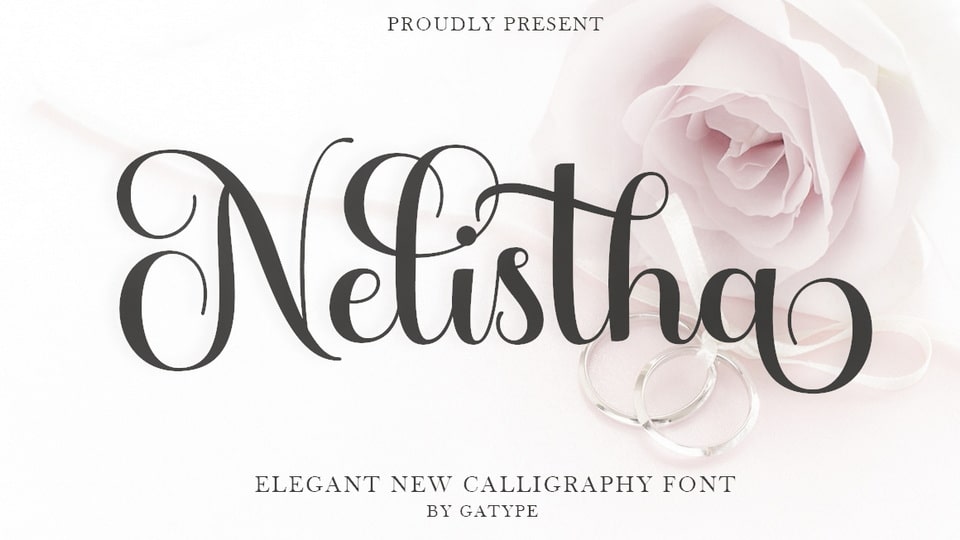
Download Nelistha font, a beautiful modern calligraphy typeface that that has font has an elegant and romantic style, perfect for branding, logos, invitations, wedding design and more.